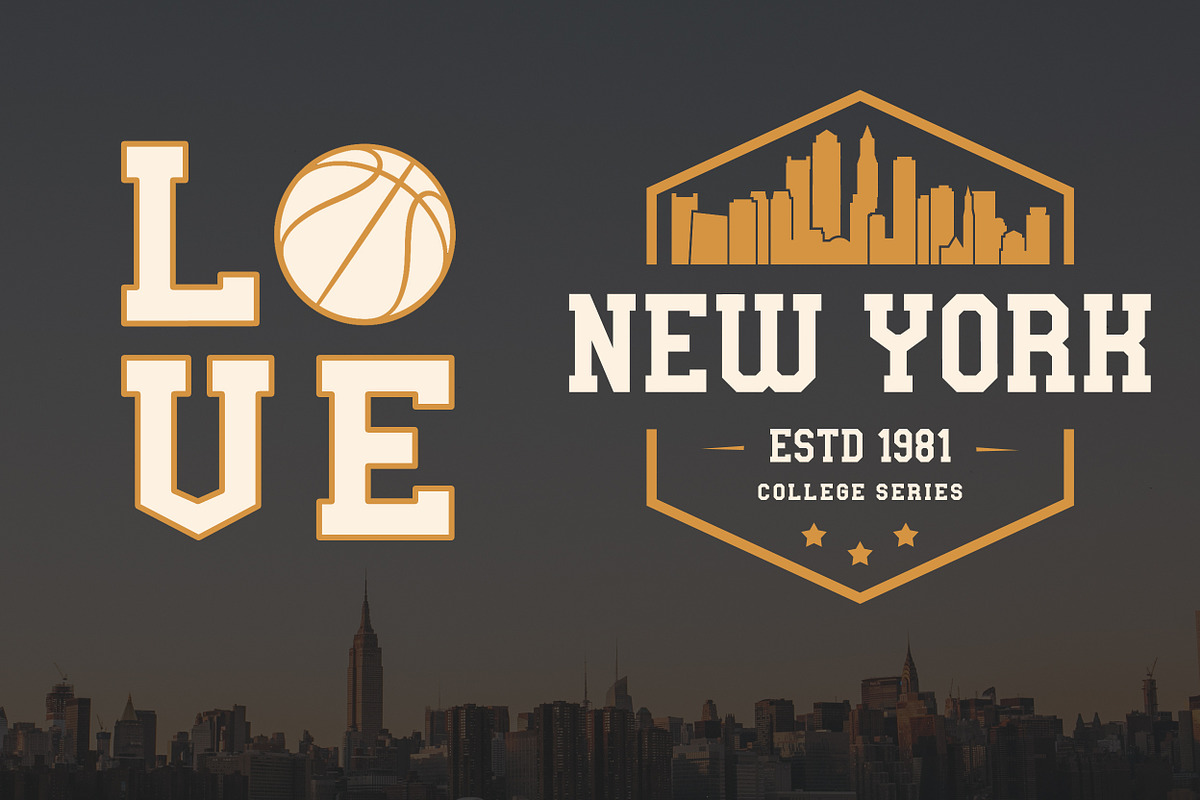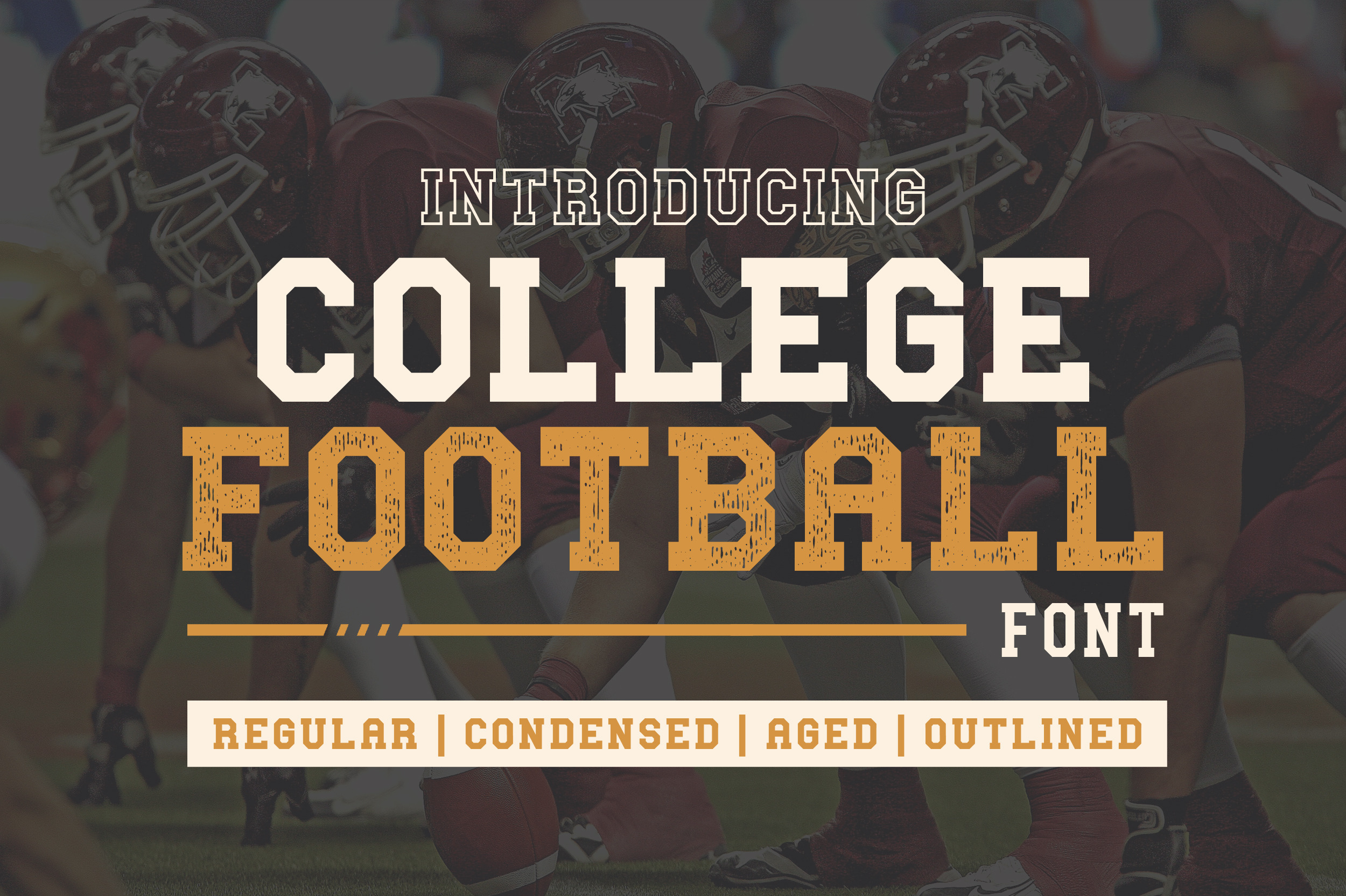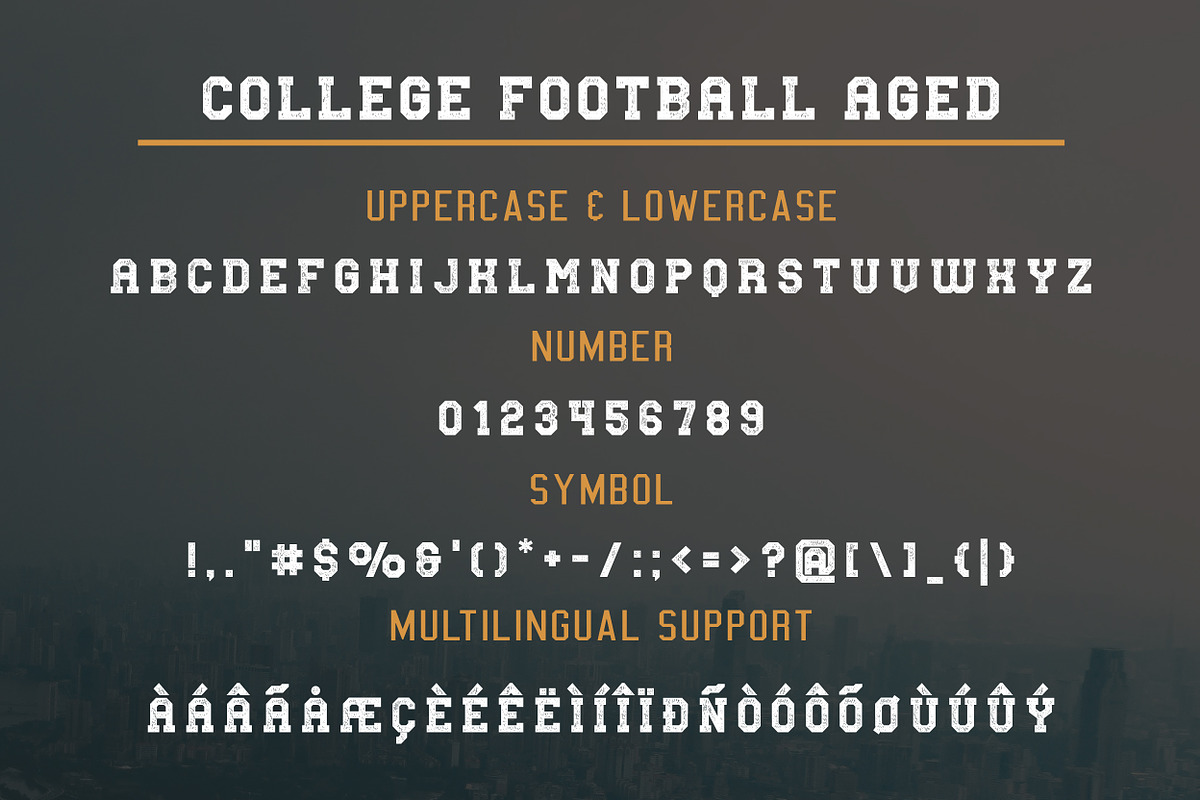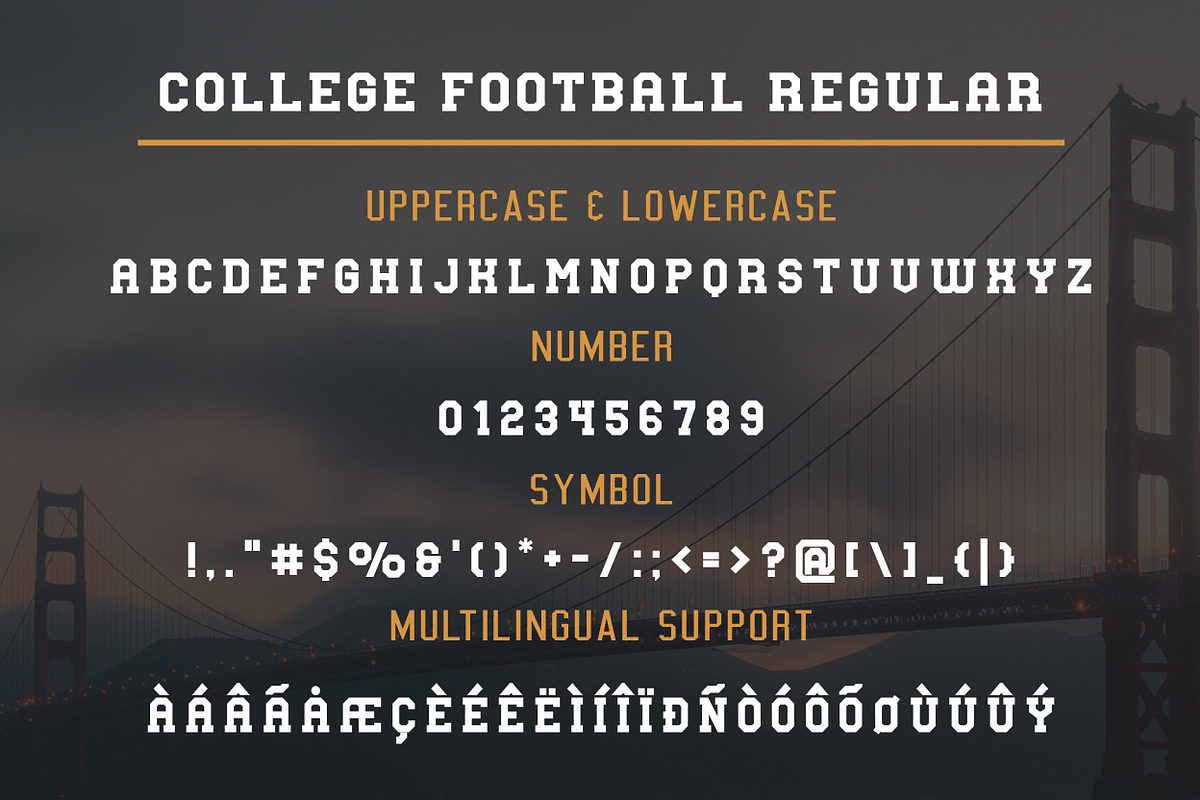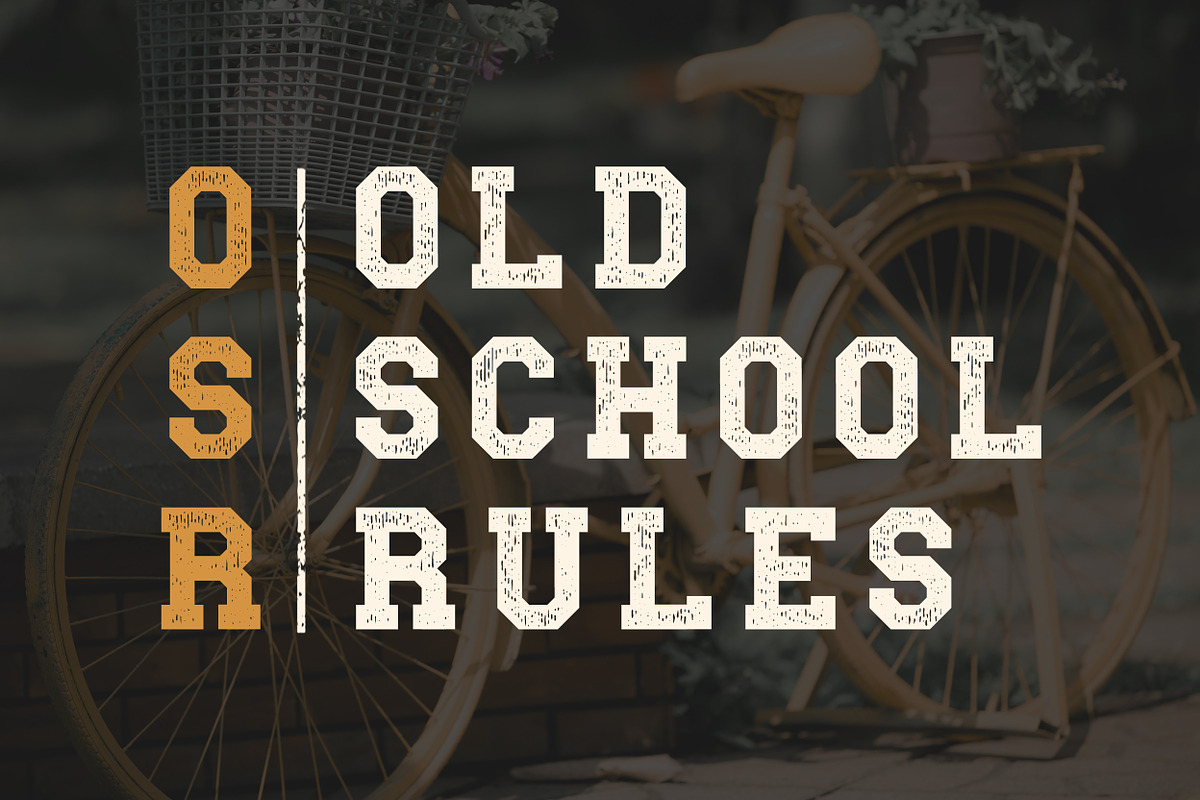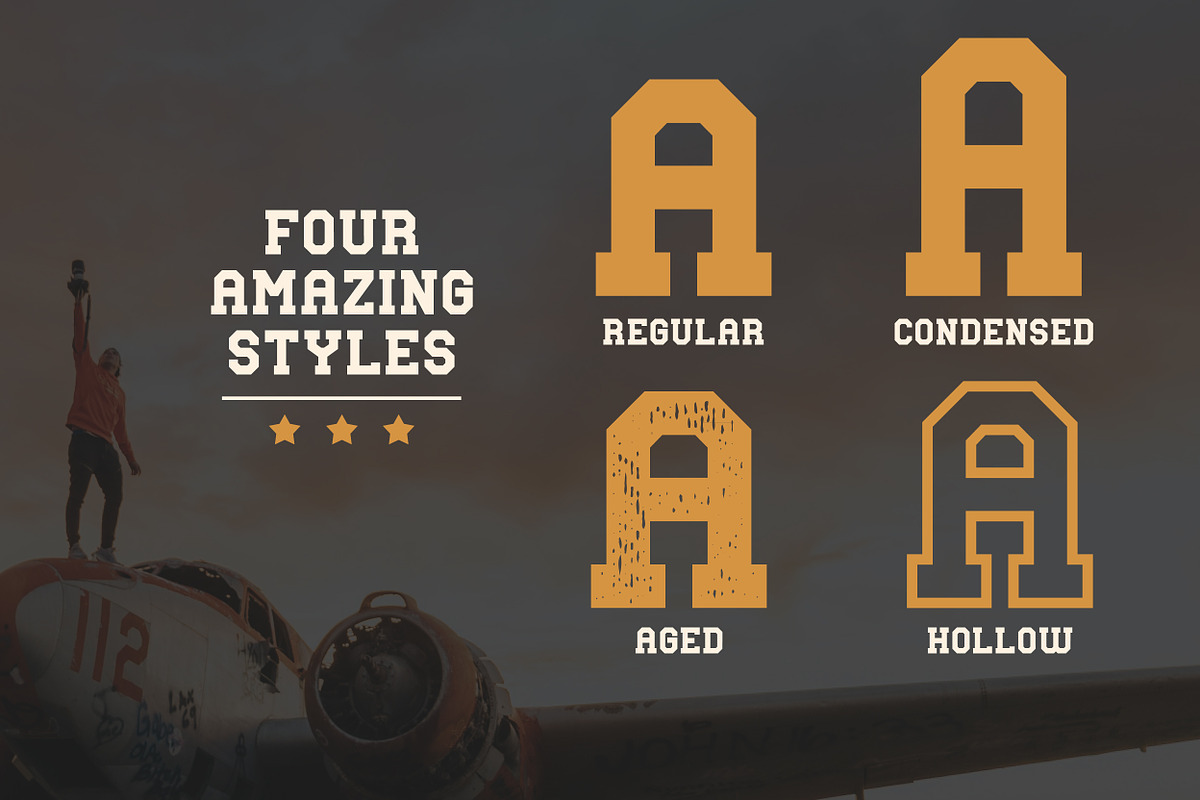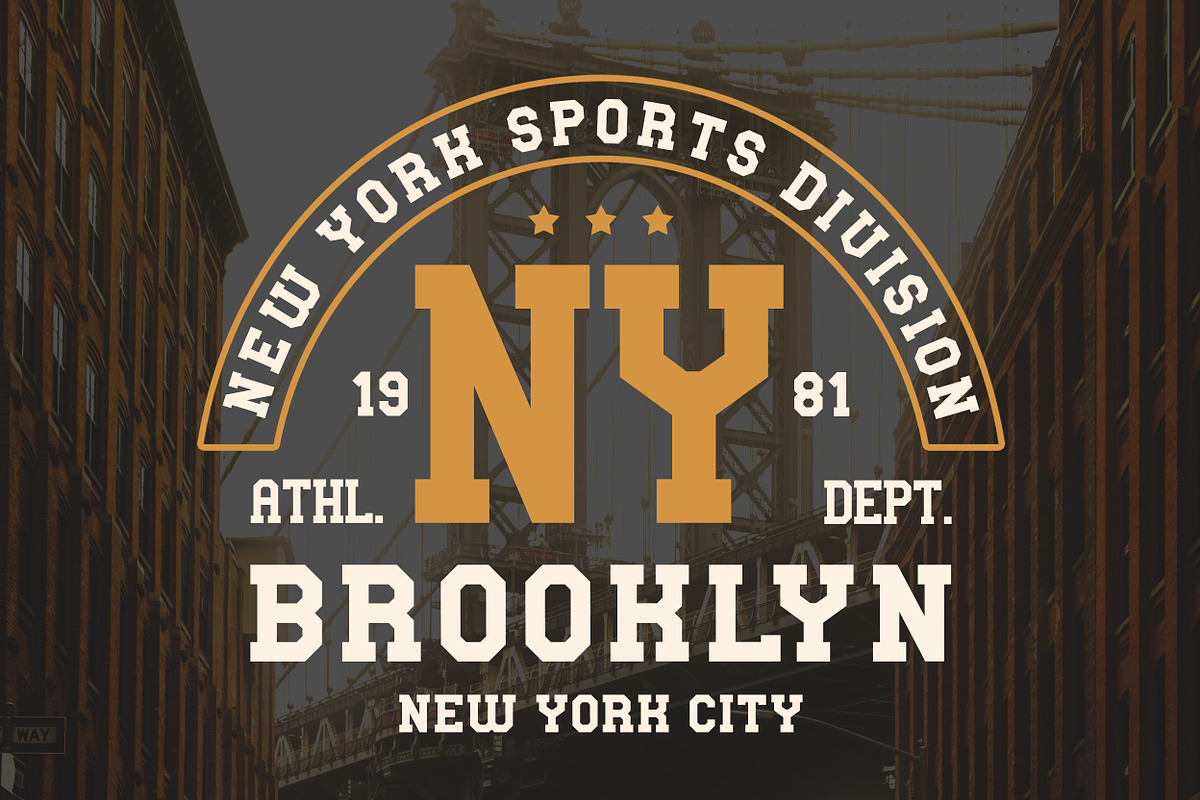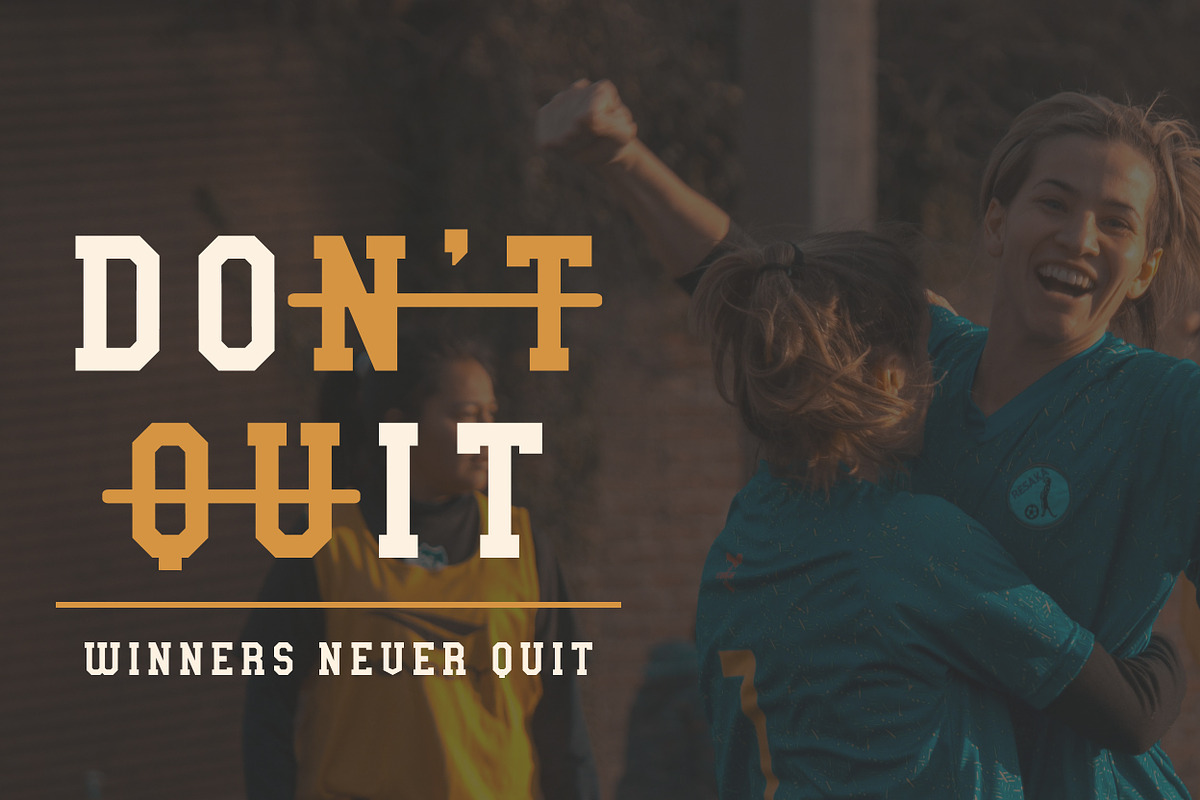
College Football Font
The College Football font is a magnificent all caps font. It comes in four different styles ( Regular, Aged, Condensed & Hollow ) and makes it incredibly versatile and perfect for sweatshirt, t-shirt, banner, logo design, sports branding, posters, apparel design, magazine headlines, labels and so much more.